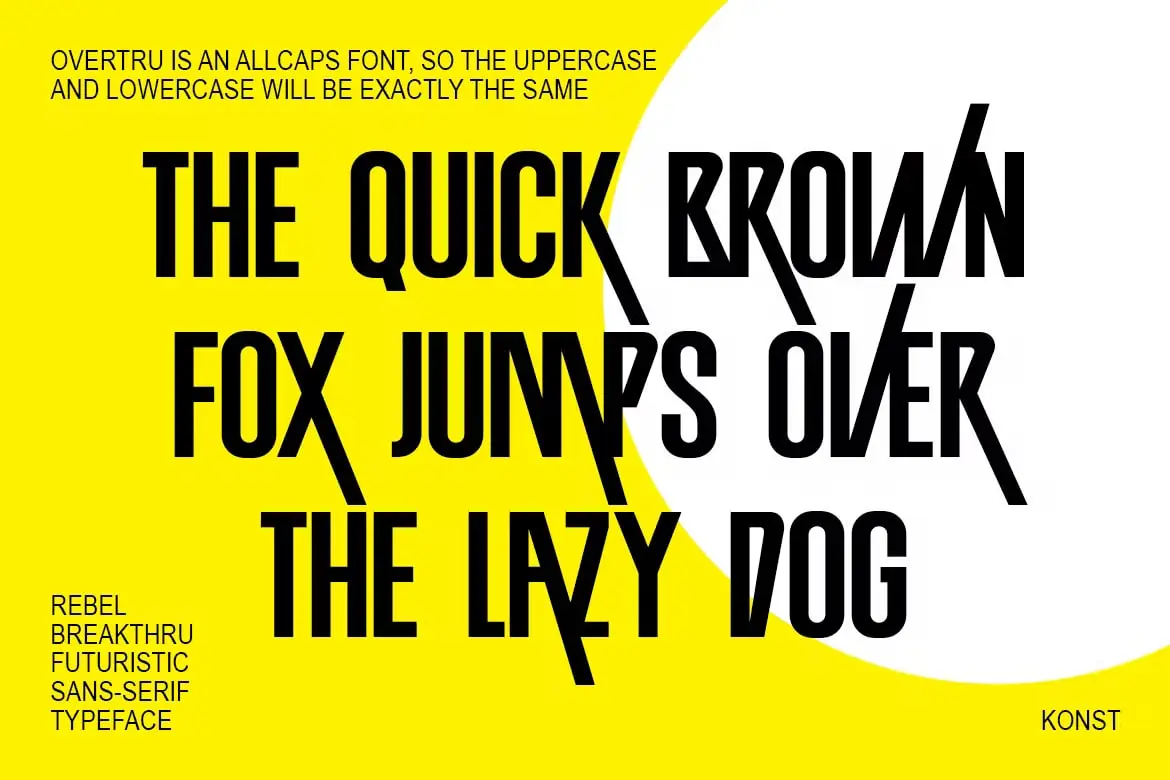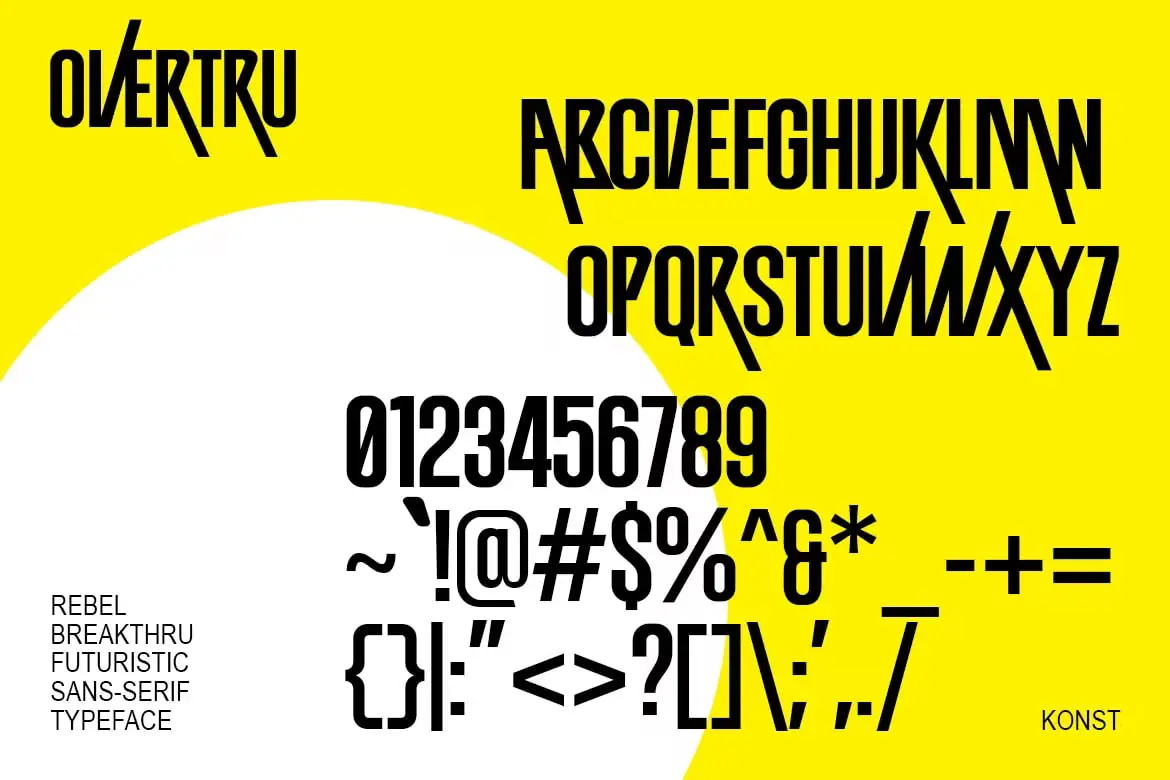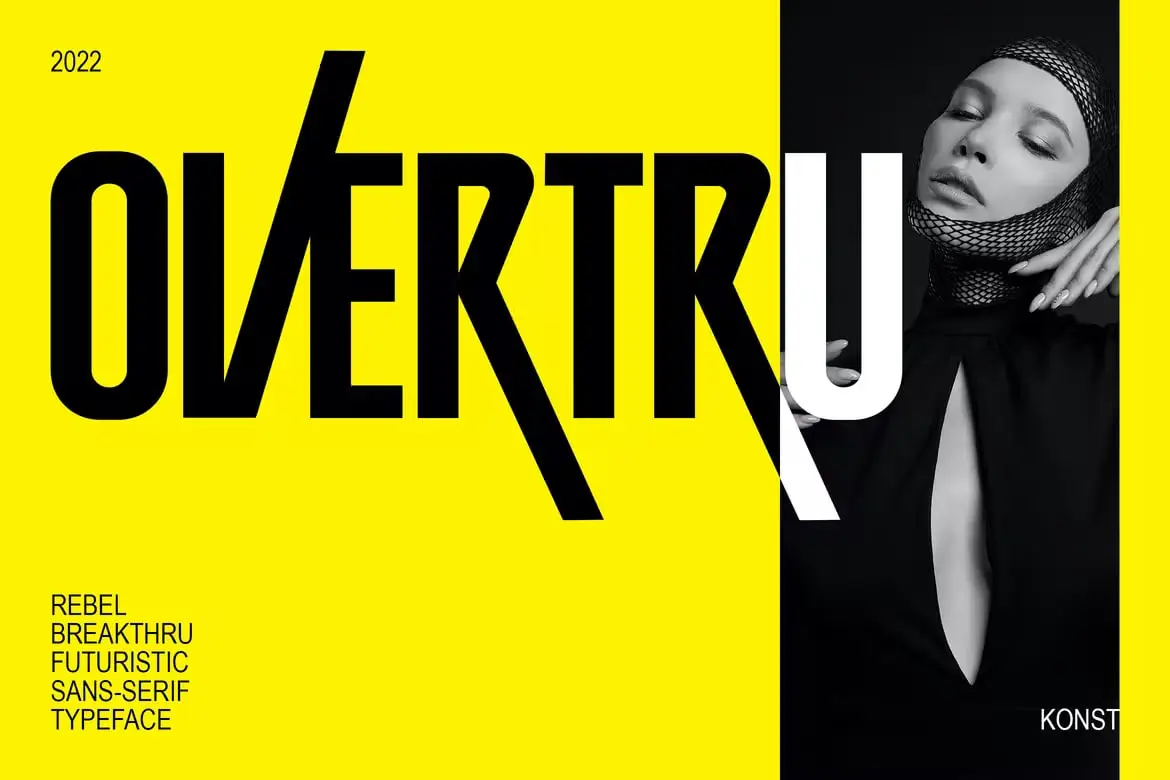
Overtru Font
The Overtru Font is a modern typeface designed to bring a touch of elegance to your projects. With its clean lines and contemporary aesthetic, it is perfect for a variety of applications including branding, logos, web design, print materials, and user interfaces.
• Multiple weights for versatile design options
• Stylish uppercase and lowercase letters
• Numerous ligatures and special characters
• Easy to read at various sizes
• Ideal for both digital and print media
• Use in headlines for impactful branding
• Combine with complementary fonts for a polished look